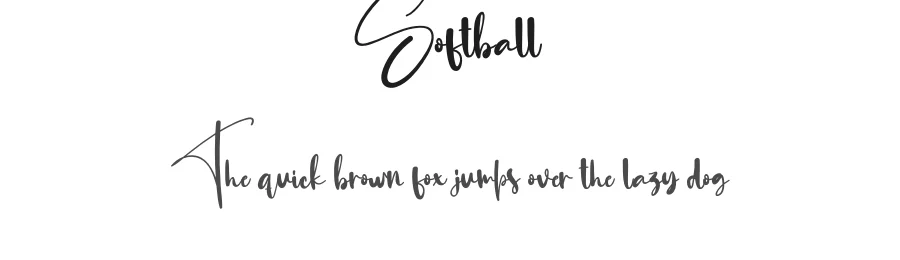
About Belinda Smith Font
Belinda Smith Specifications
| Font Family | Belinda Smith |
| Full Name | Belinda Smith |
| Glyph Count | 259 glyphs |
| PostScript Name | BelindaSmith |
| Designer | Letternity |
Belinda Smith ships with 2 OpenType features you can switch on in apps that support them (Illustrator, InDesign, Affinity, Figma, CSS font-feature-settings).
Belinda Smith supports 222 languages.
Belinda Smith Font is a script font that shines as a display or heading face. Pair it with a clean sans-serif or serif font for body text β the contrast creates a clear hierarchy while the two styles stay balanced and easy to read.